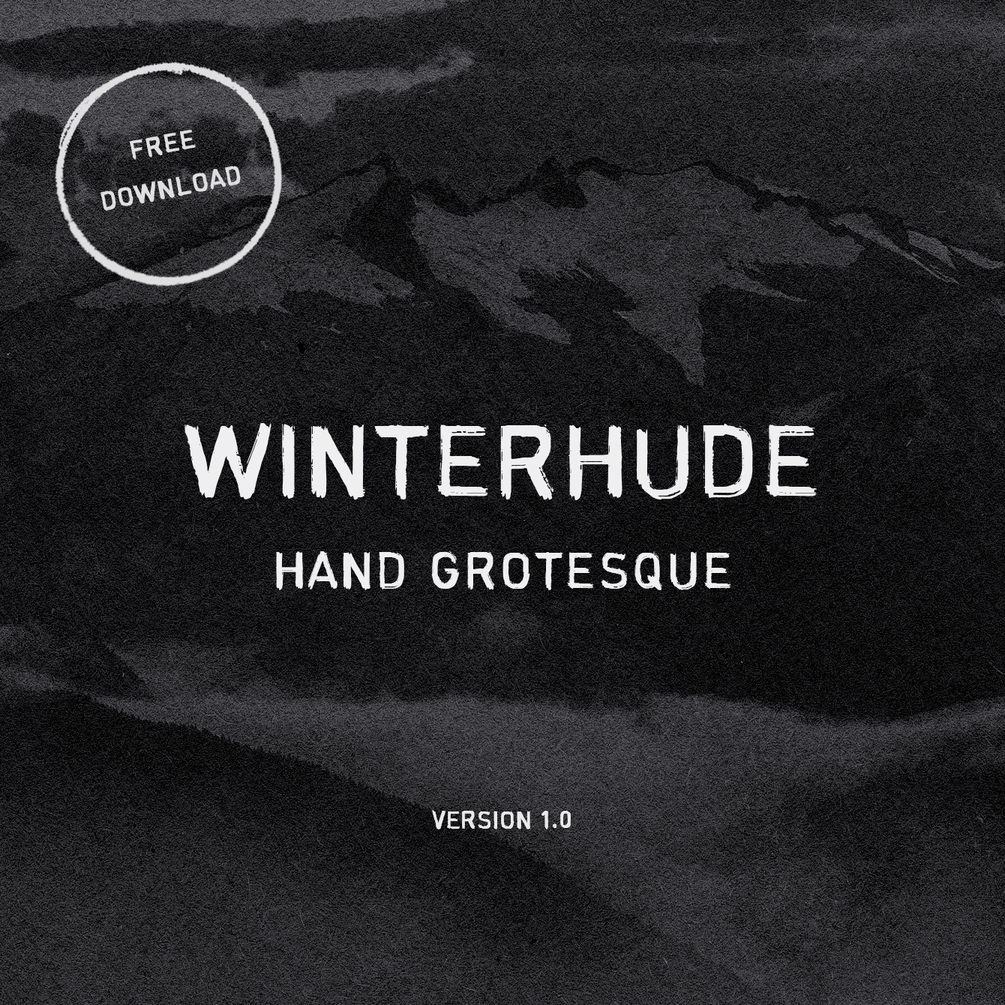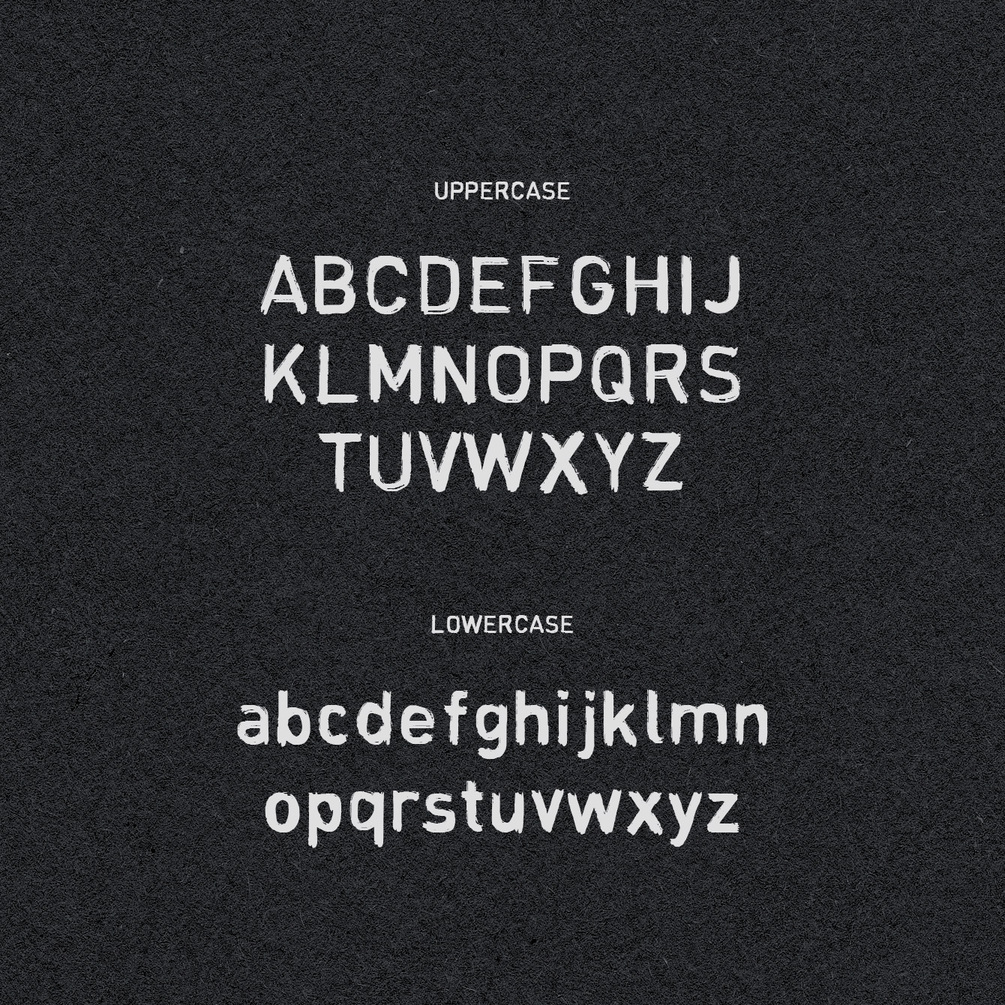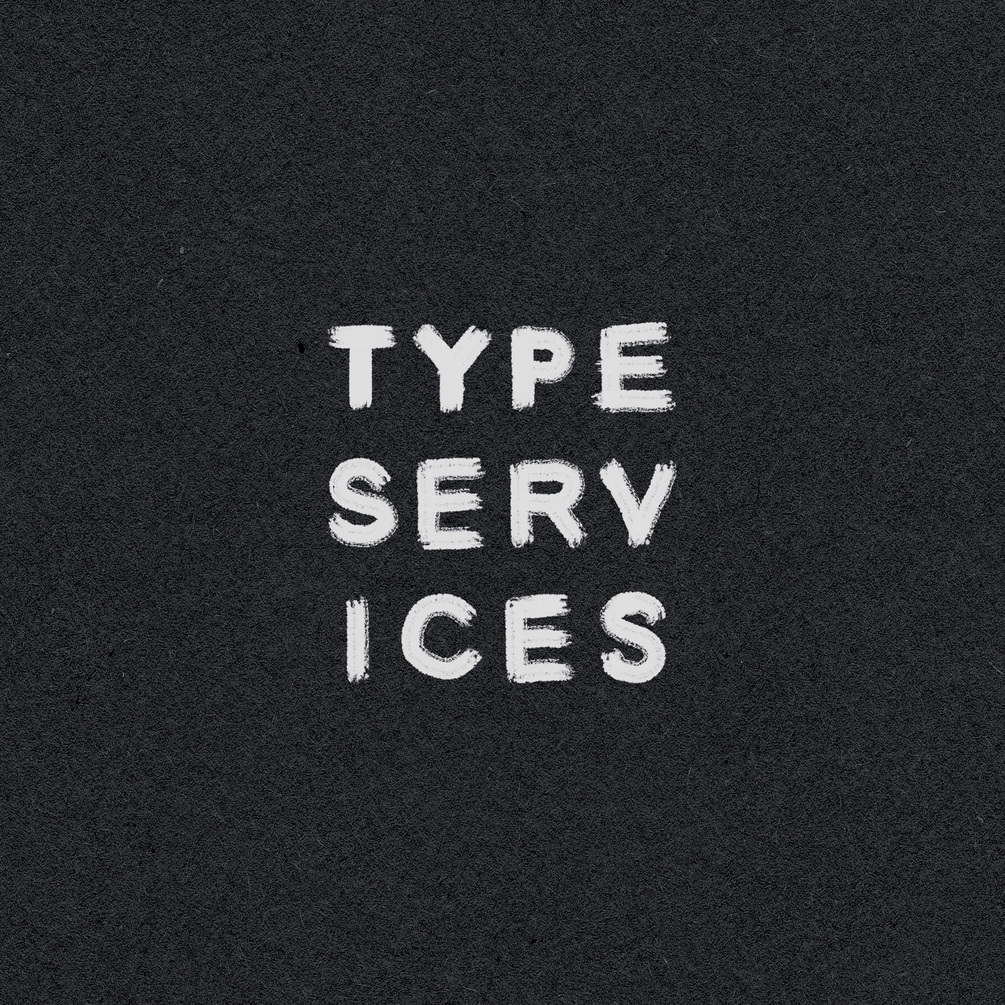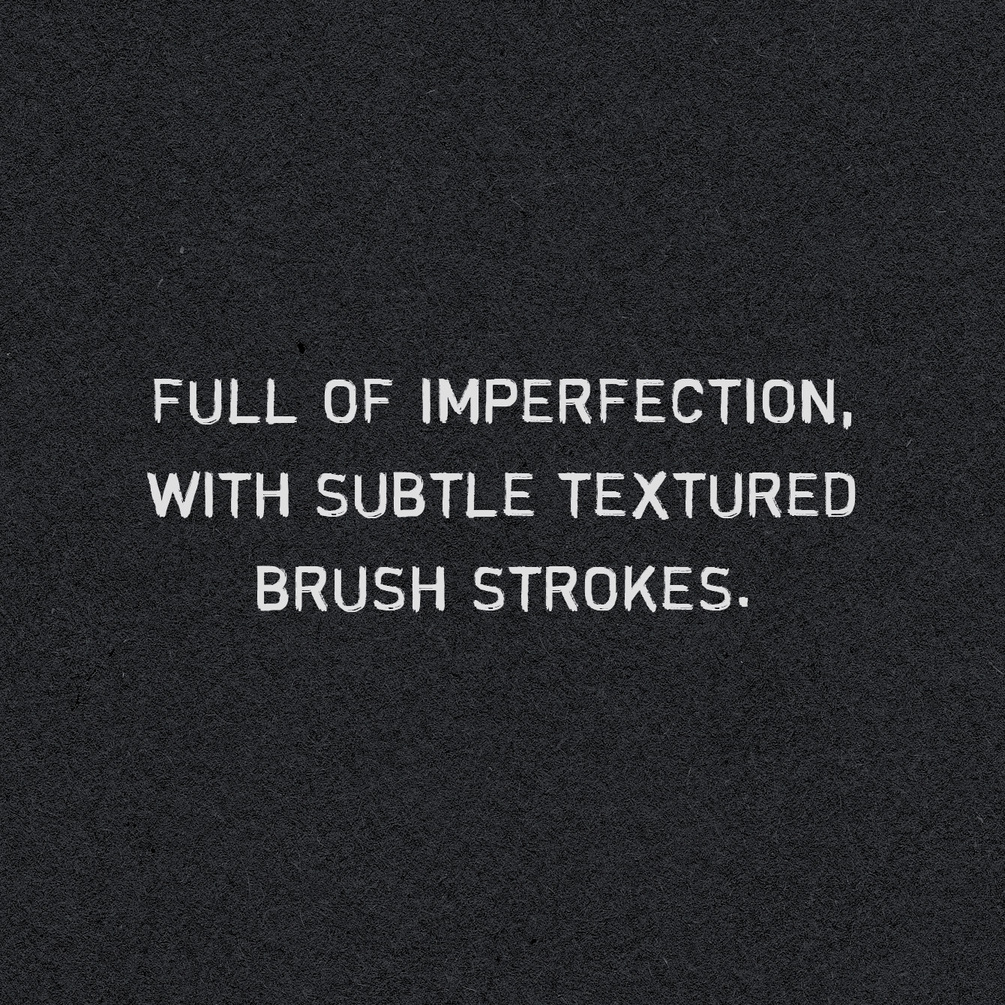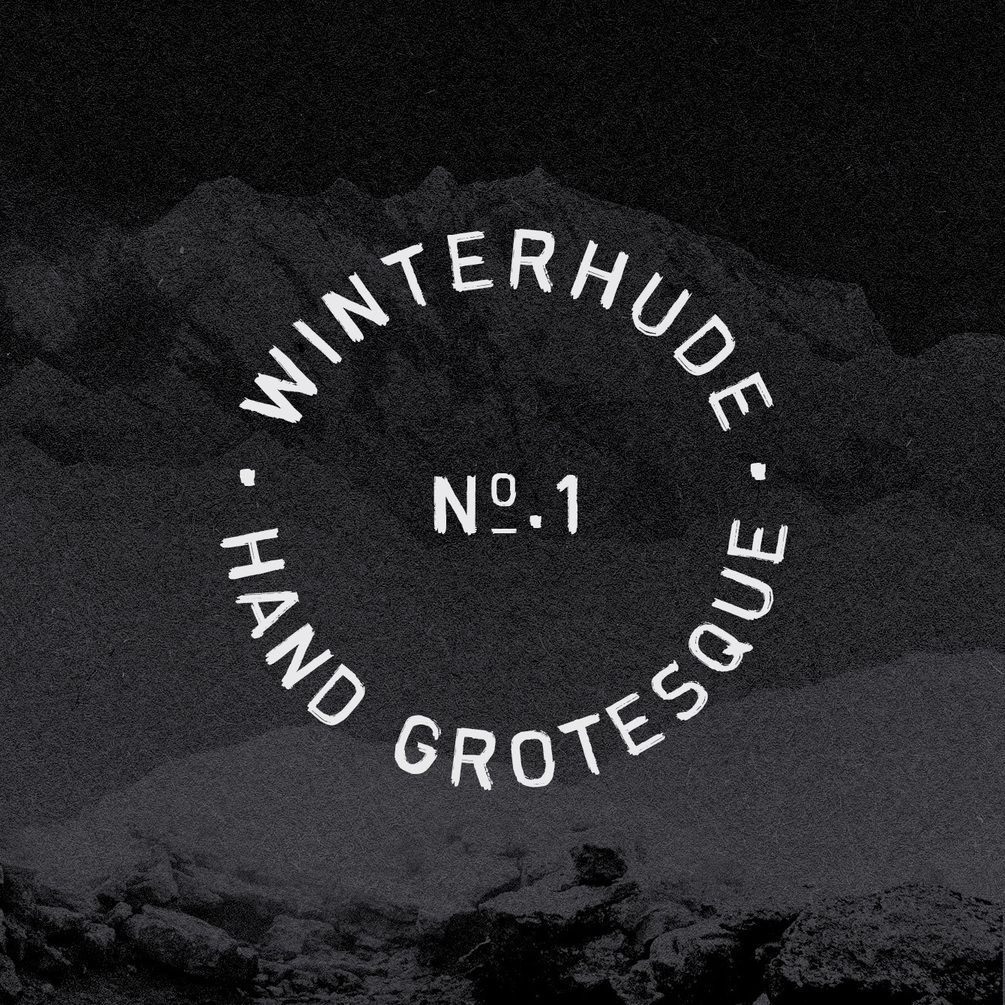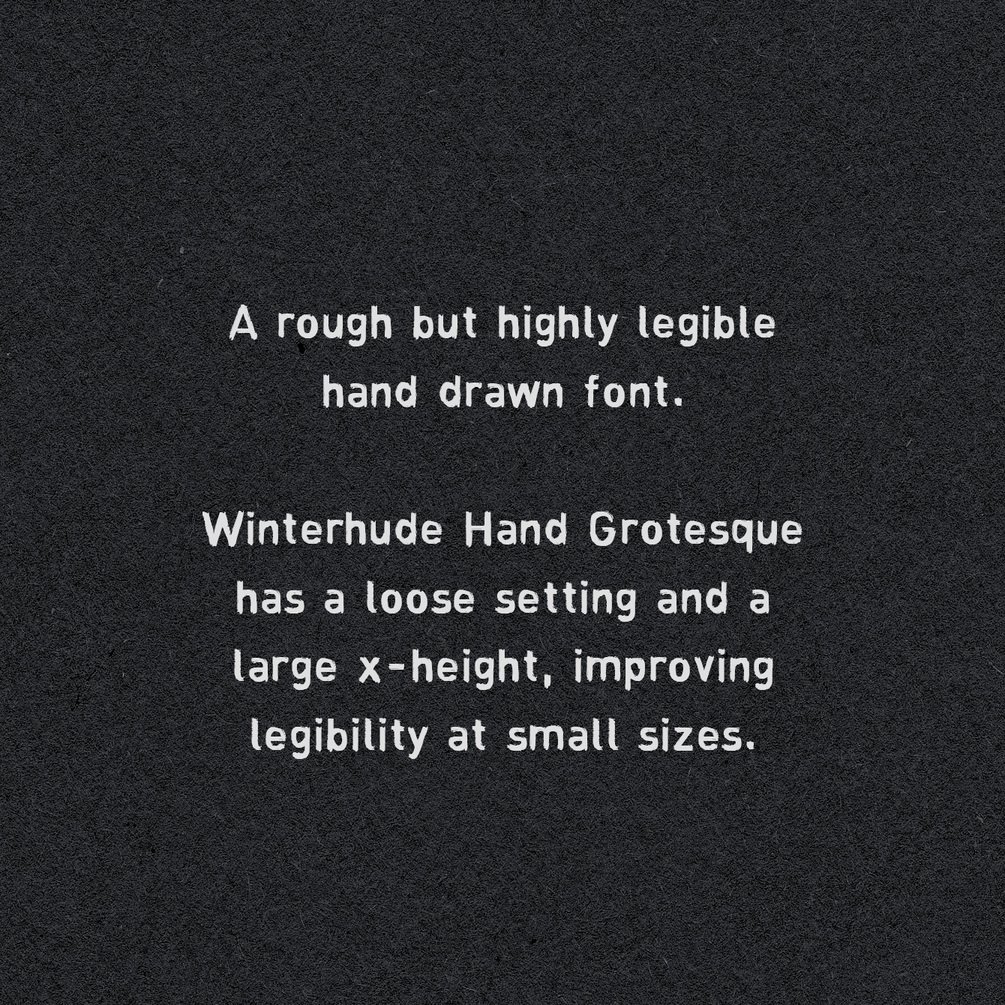
Winterhude — FREE Textured Brush Font
Introducing Winterhude Hand Grotesque. A handwritten textured brush font by Type Services.
WHG is characterised by it's rough yet highly legible hand drawn glyphs. The font features a loose setting and a large x-height, improving legibility at small sizes. Designed to be used at smaller sizes, specifically when paired with larger display fonts.
It's also a great choice to use in stamps, stickers, text banners and any other creative applications.